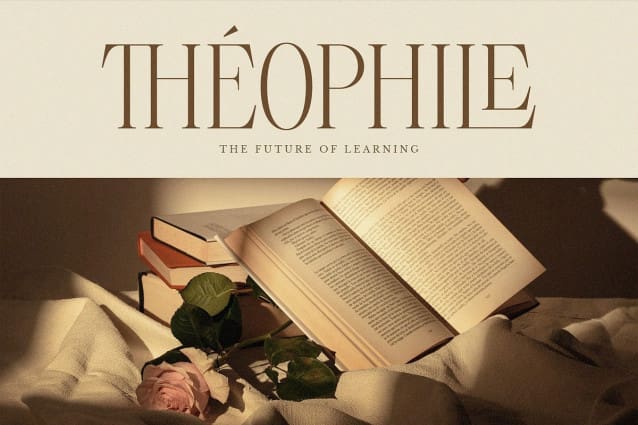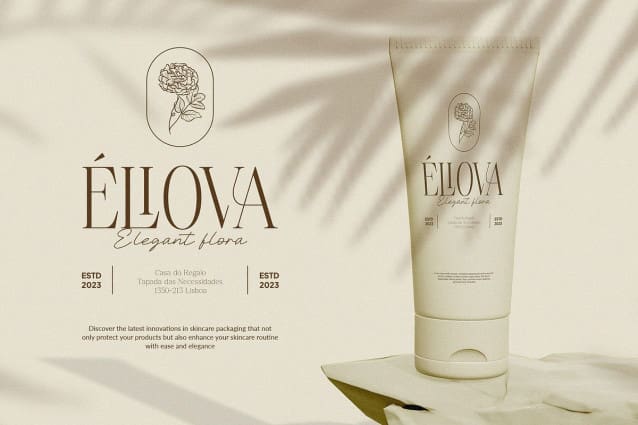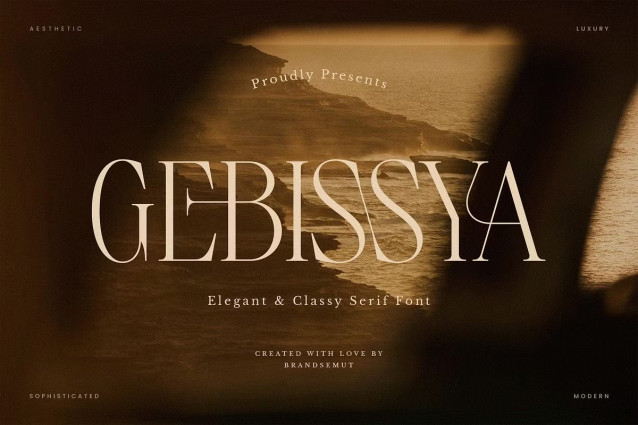
Gebissya Font
Gebissya Font – Elegant & Classy Serif. Gebissya is a elegant, classy and modern display serif, best used as a display for headings, logos, branding, magazines, product packaging and invitations. Gebissya equipped with Ligature and many Alternates and come with clean lines and smooth curves give any project an extra touch of class.